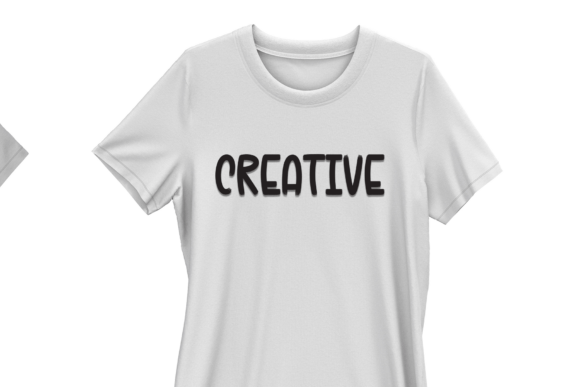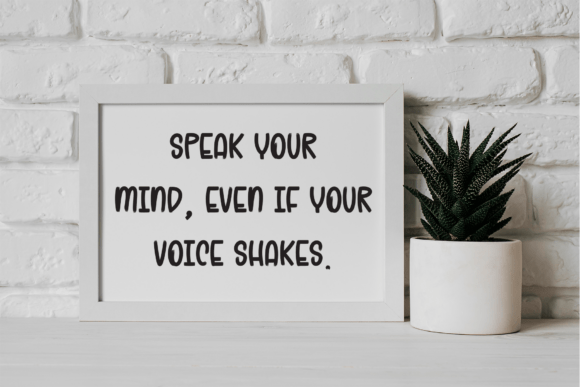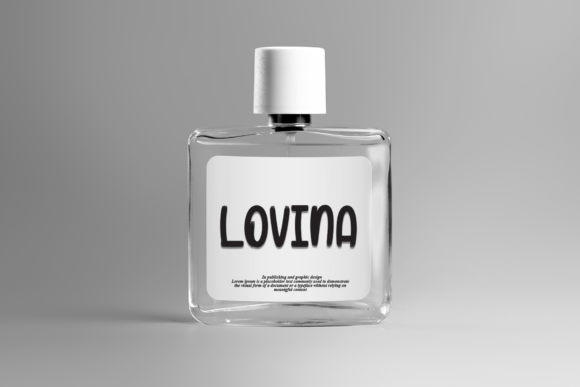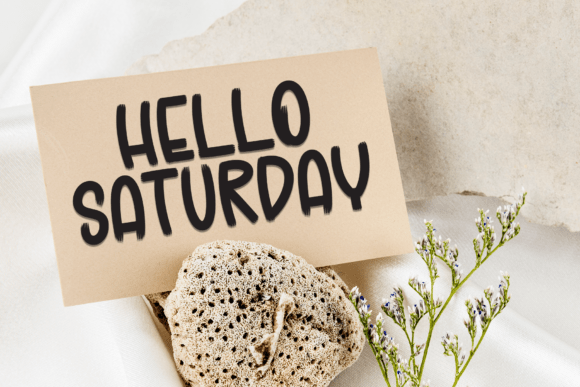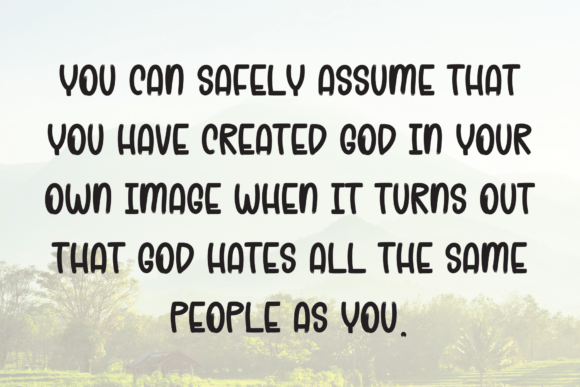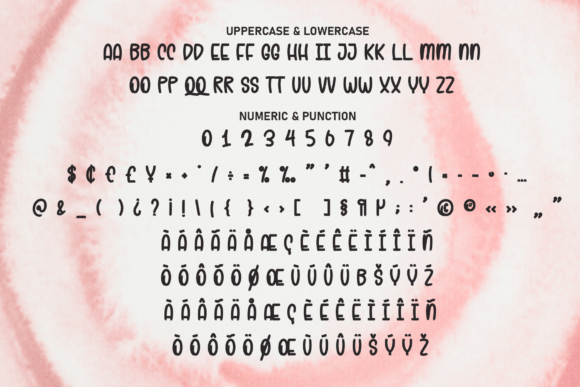
Discover the Charm of Brush Center Font: A Perfect Blend of Simplicity and Friendliness
In the world of typography, finding the right font that captures the essence of your design can be a daunting task. However, if you’re looking for a casual and neat display font that combines simplicity with a friendly, approachable vibe, look no further than Brush Center Font. This beautifully crafted font is designed to bring a warm and inviting touch to any design, making it ideal for a wide range of applications, from branding and headlines to packaging and digital content.
The Characteristics of Brush Center Font
Brush Center Font boasts a range of characteristics that make it a standout in the world of typography. Its clean lines, balanced letterforms, and subtle rounded edges give it a polished finish that’s reminiscent of modern handwritten typography. The font’s crisp structure and versatile style make it perfect for designers and crafters looking to add a touch of personality to their work.
One of the key features of Brush Center Font is its ability to deliver clarity and charm in equal measure. The font’s clean and simple design makes it easy to read, even at smaller sizes, while its friendly and approachable vibe adds a touch of warmth and personality to any design.
Why Choose Brush Center Font?
So, why should you choose Brush Center Font for your next design project? Here are just a few reasons:
- Versatility: Brush Center Font is a versatile font that can be used for a wide range of applications, from branding and headlines to packaging and digital content.
- Readability: The font’s clean and simple design makes it easy to read, even at smaller sizes.
- Personality: Brush Center Font adds a touch of personality and warmth to any design, making it perfect for designers and crafters looking to create a unique and engaging visual identity.
- Modern Look: The font’s modern handwritten typography style gives it a fresh and contemporary look that’s perfect for designers and crafters looking to stay ahead of the curve.
Using Brush Center Font in Your Design
Brush Center Font is easy to use and can be incorporated into a wide range of design projects. Here are a few tips for using the font in your design:
- Pair it with other fonts: Brush Center Font pairs well with a range of other fonts, making it easy to create a unique and engaging visual identity.
- Use it for headlines: The font’s bold and attention-grabbing design makes it perfect for headlines and titles.
- Add a personal touch: Brush Center Font is perfect for adding a personal touch to your design, making it ideal for use in branding and packaging.
In conclusion, Brush Center Font is a beautifully crafted font that’s perfect for designers and crafters looking to add a touch of personality and warmth to their work. Its clean lines, balanced letterforms, and subtle rounded edges give it a polished finish that’s reminiscent of modern handwritten typography. With its versatility, readability, and modern look, Brush Center Font is a great choice for a wide range of design projects.
Whether you’re looking to create a unique and engaging visual identity, add a personal touch to your design, or simply want to stay ahead of the curve, Brush Center Font is a great choice. So why not give it a try and see how it can elevate your design to the next level?